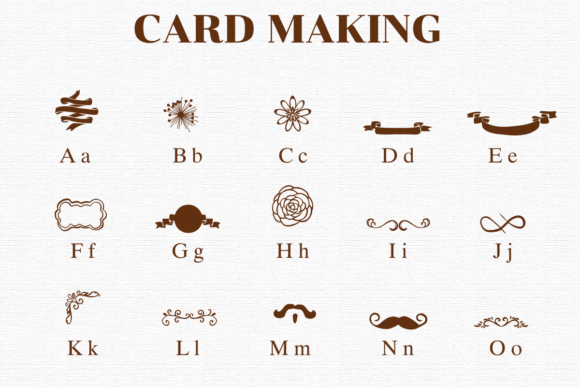
Card Making Font
Card making with dingbat fonts involves using special fonts that include various decorative symbols and shapes instead of regular letters and numbers. These symbols can be anything from cute icons, borders, and patterns to small images of animals, flowers, and holiday themes. You can use these elements to design and decorate your own cards for different occasions, making each card unique and personalized. It’s a fun and creative way to add flair and style to your card projects!